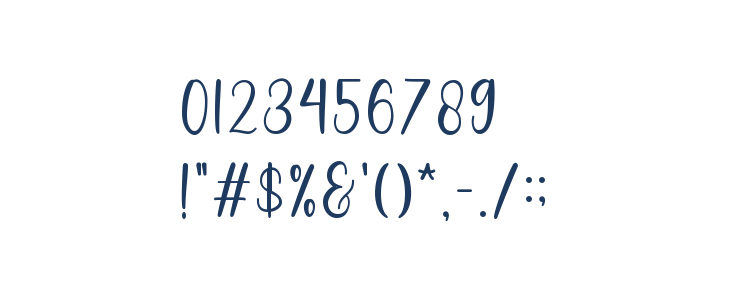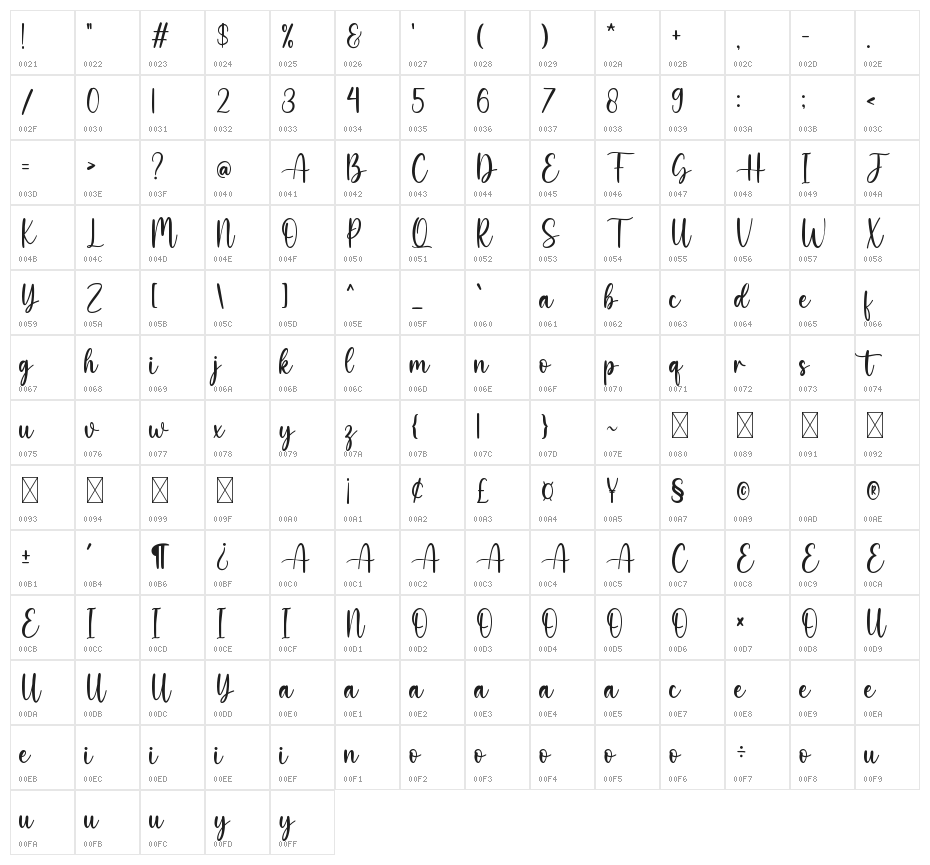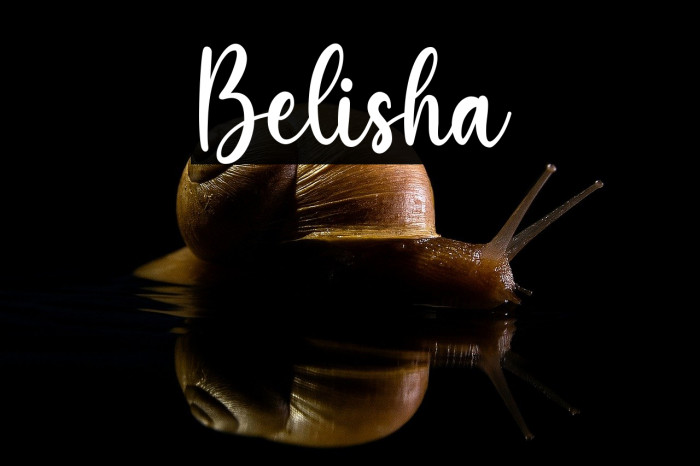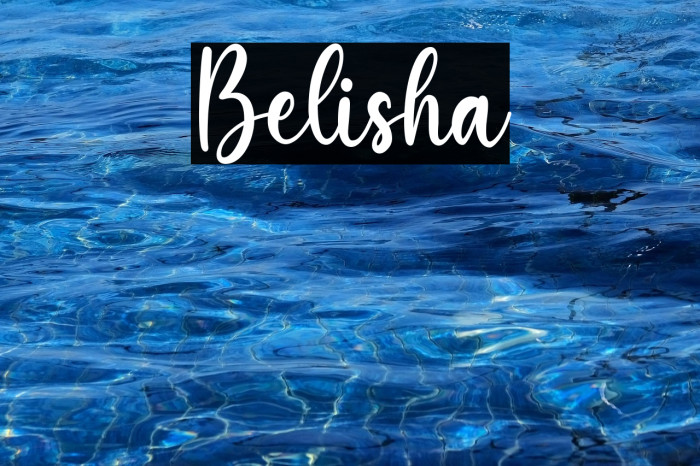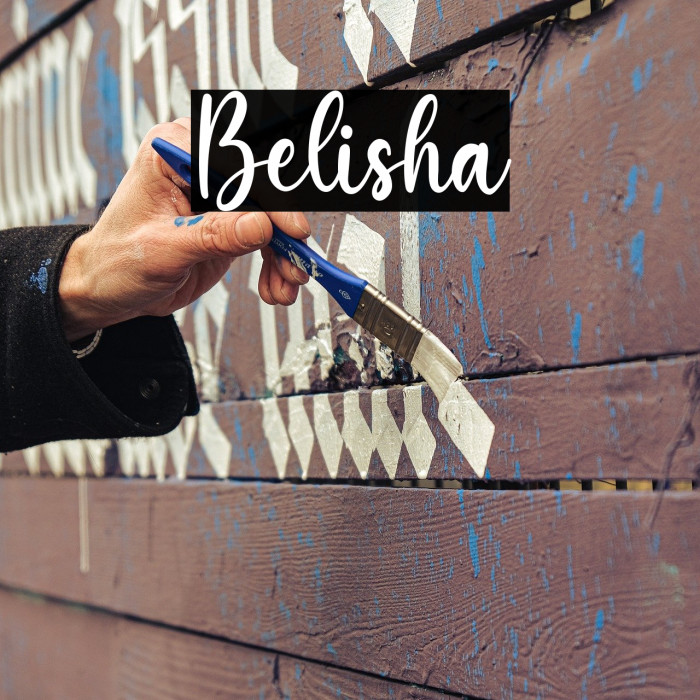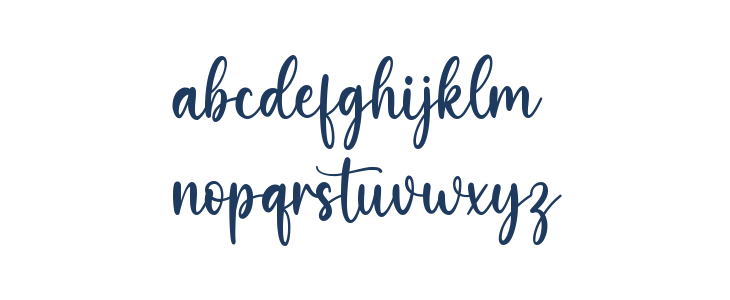
Belisha Font
Belisha Description
This font features a lively and flowing script style with a modern touch. The uppercase letters are elegantly connected with smooth curves and loops, giving a sense of movement and grace. The lowercase letters maintain a consistent flow, complementing the uppercase with their rounded and slightly elongated forms. The numerals are bold and clear, ensuring readability while maintaining the overall aesthetic. Special characters are thoughtfully designed to match the script's playful yet sophisticated style. This font is perfect for projects that require a personal and artistic touch.